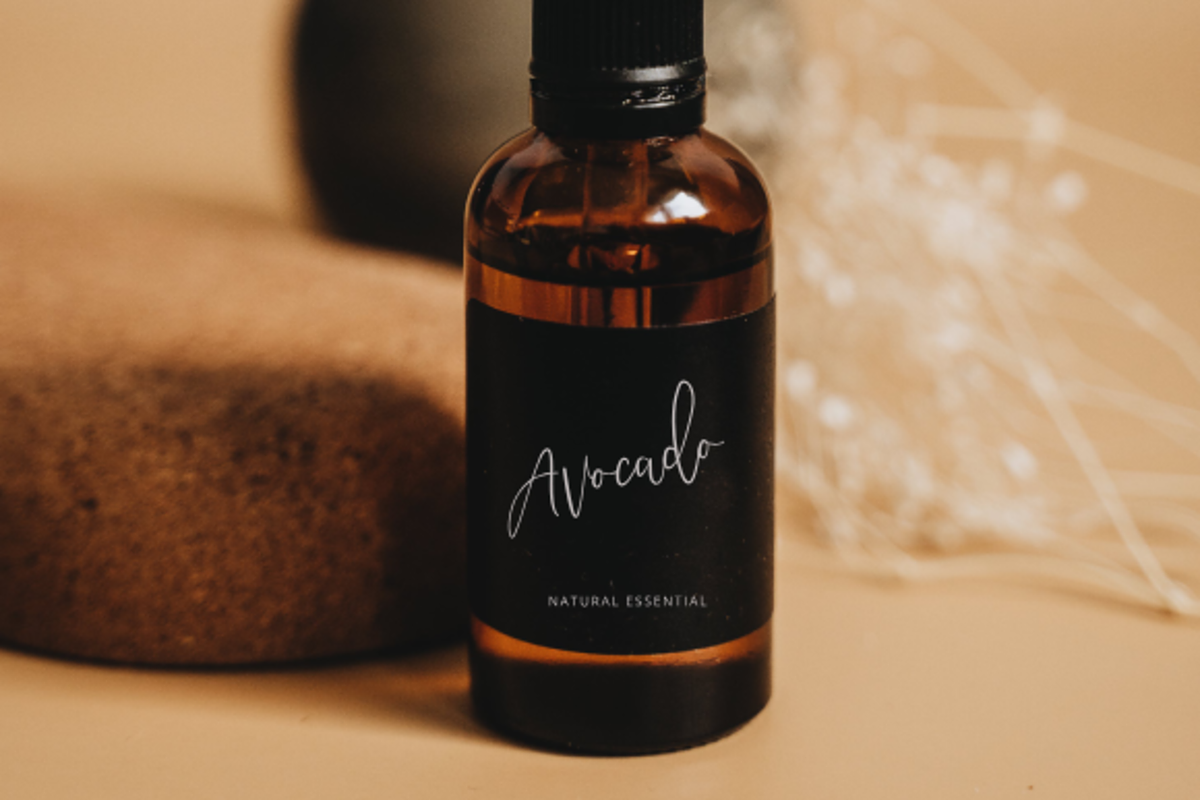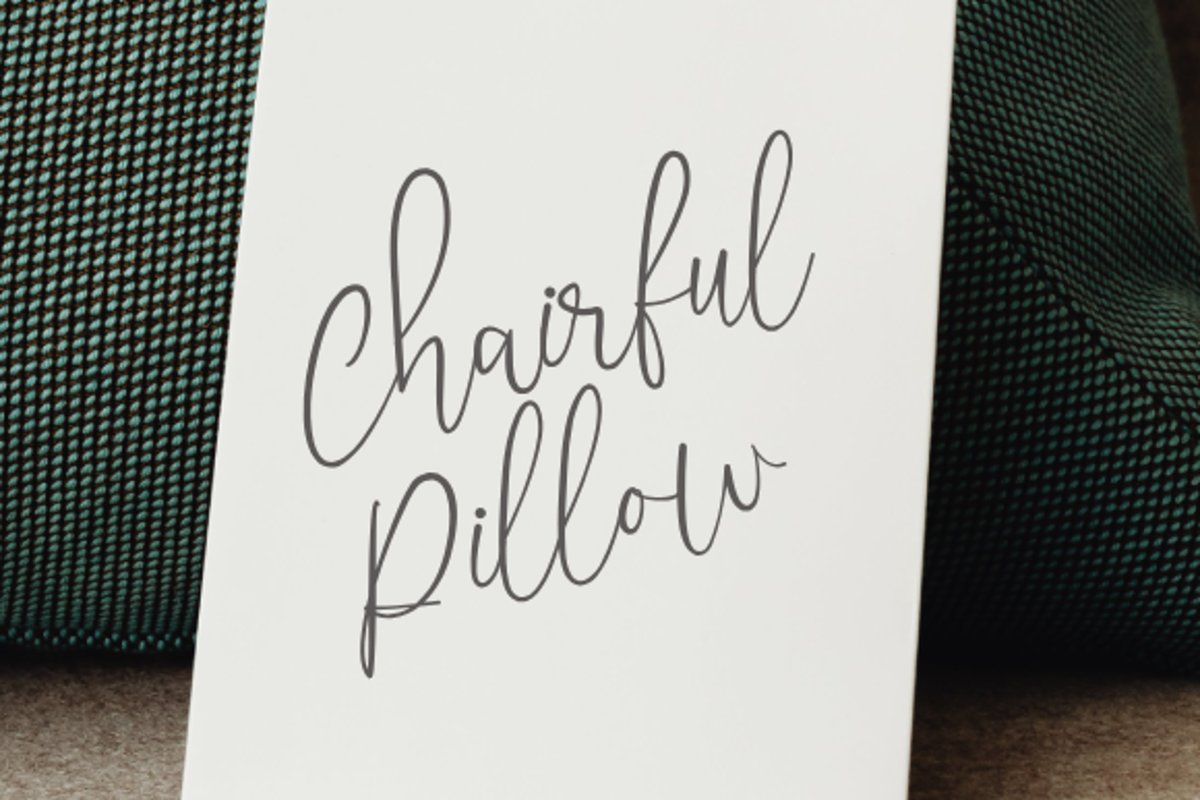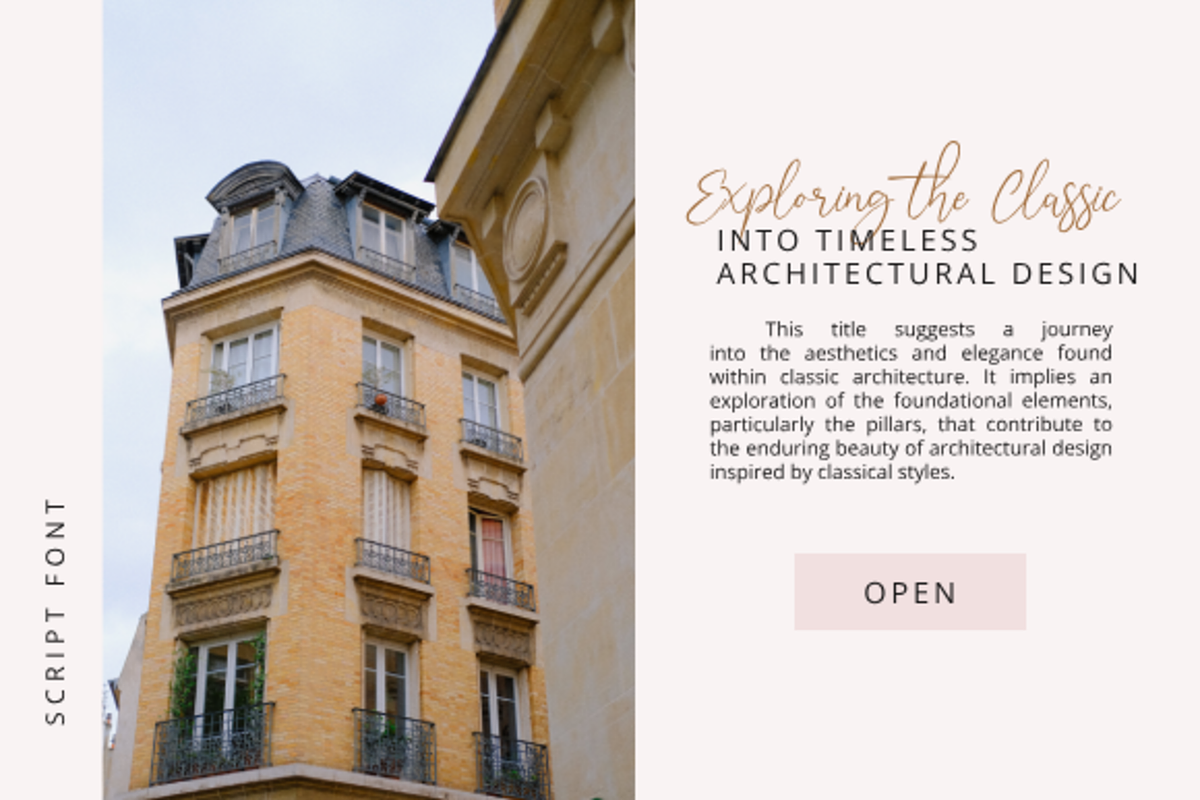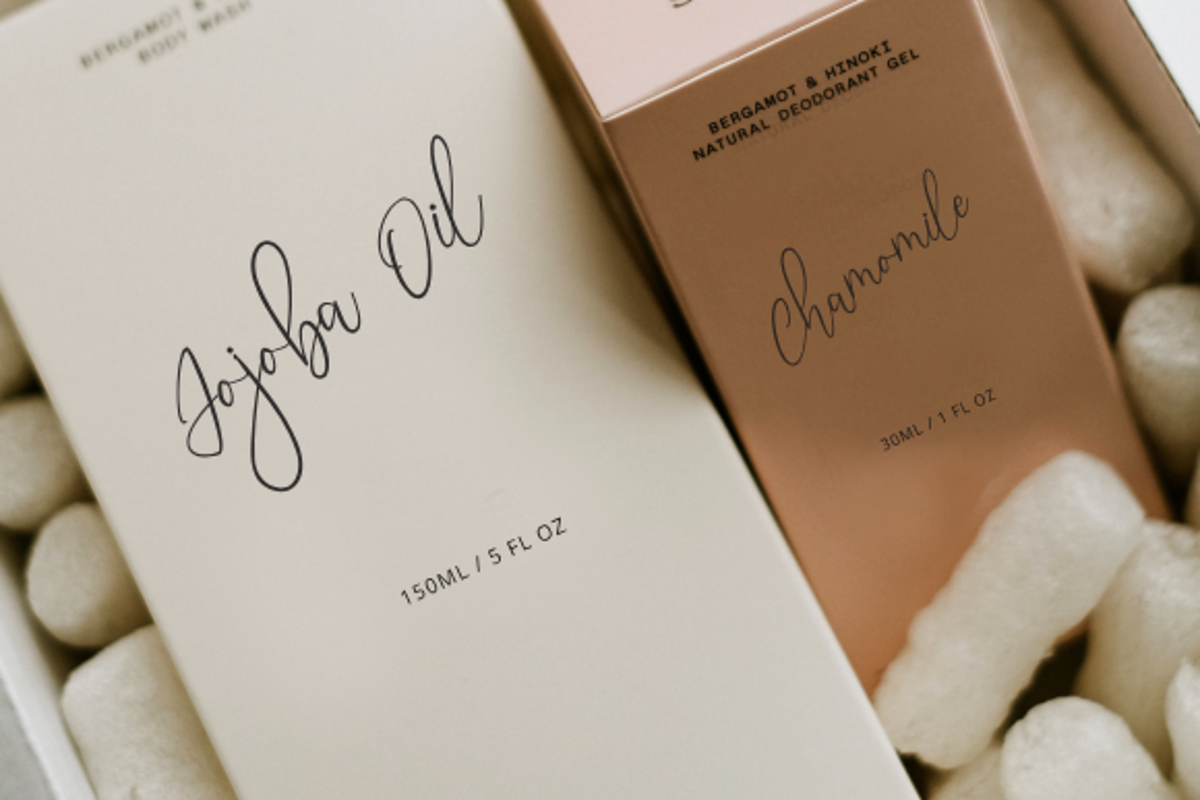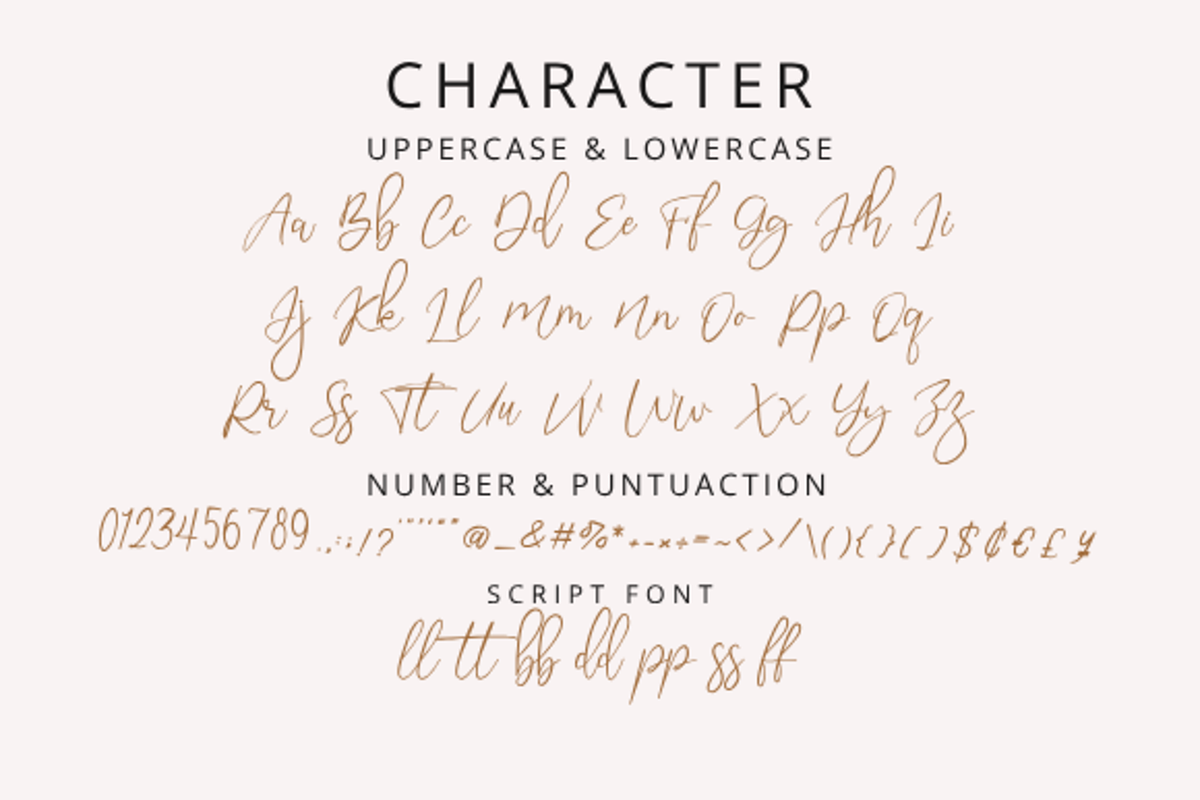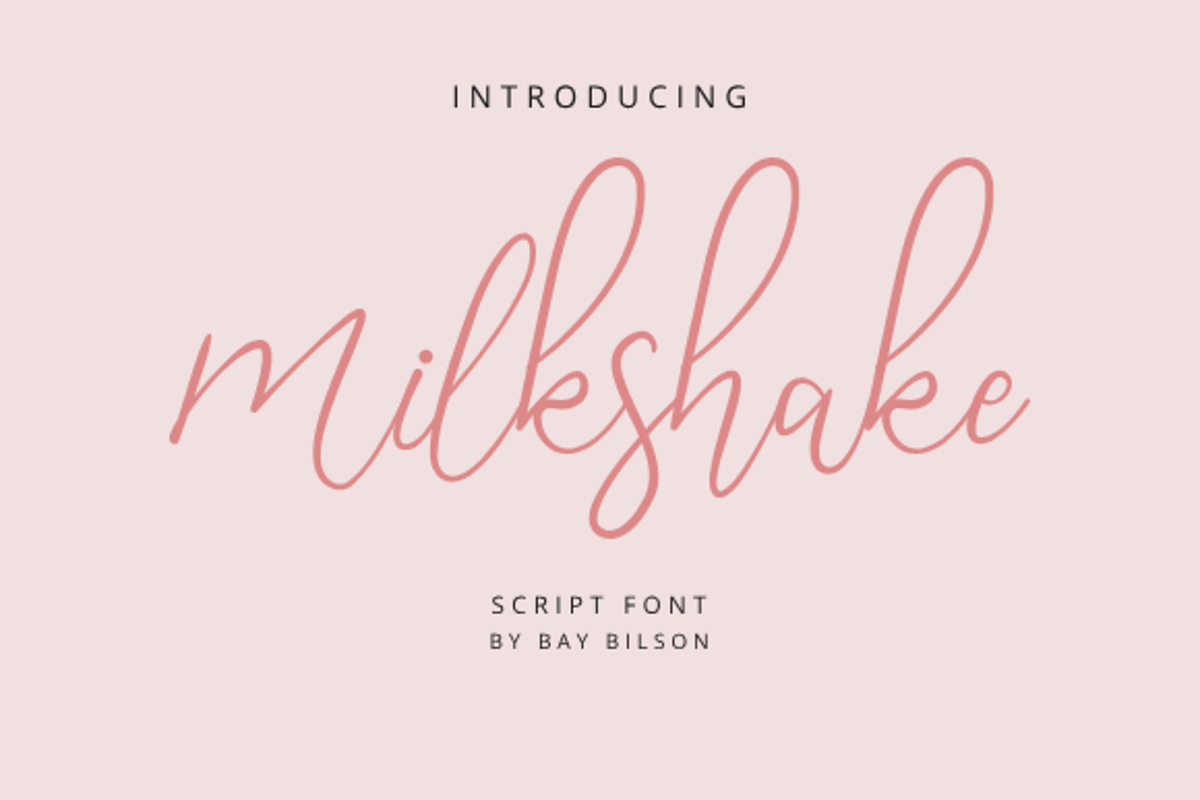
Milkshake Script
“Milkshake” is a script font that exudes a sense of casual elegance and playfulness. Its unique and whimsical design makes it stand out, offering a delightful touch to any project. The font features fluid and connected strokes, resembling the effortless flow of handwritten script. The letters are characterized by gentle curves, adding a sense of friendliness and warmth to the overall aesthetic.
-Full alphabet with Uppercase and Lowercase A-Z for script
-Numbers for all fonts
-Punctuation and symbols for all fonts
-Ligature Lowercase script
-Multilingual support all fonts